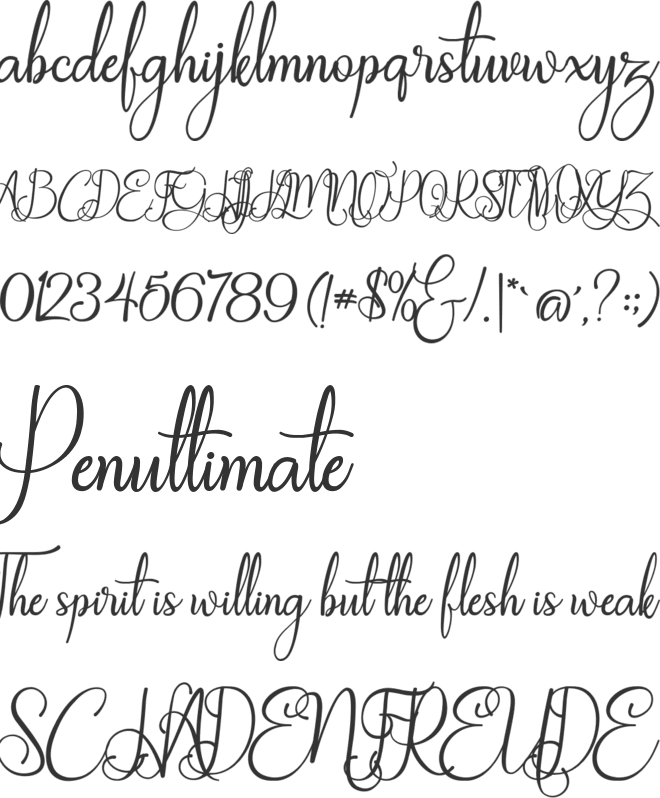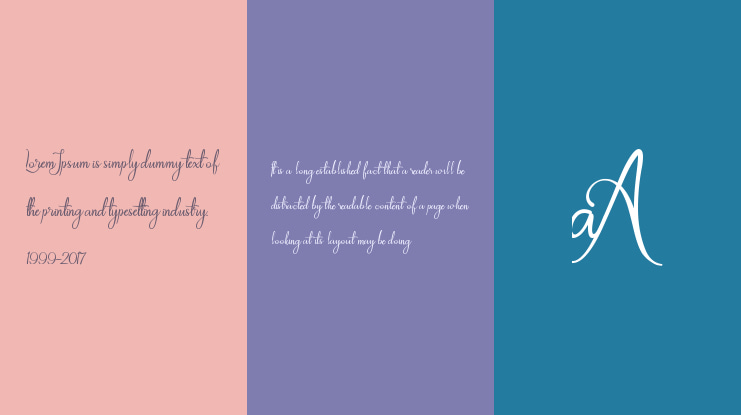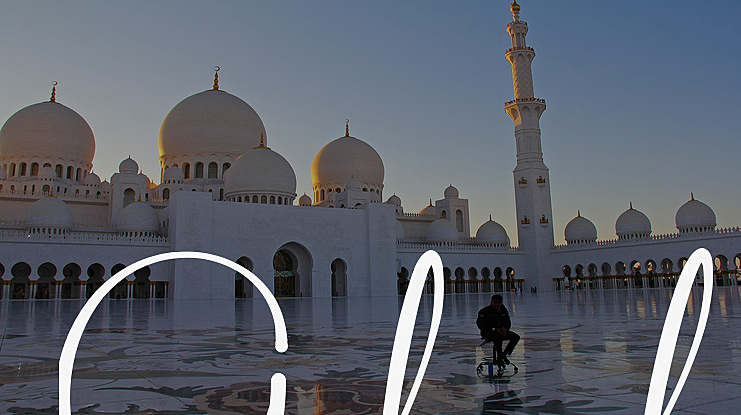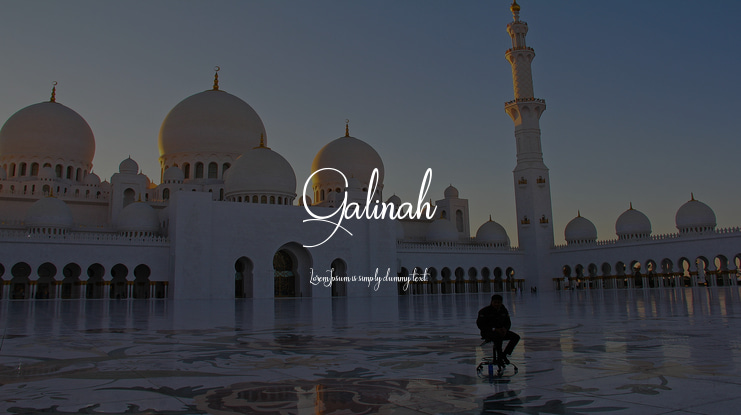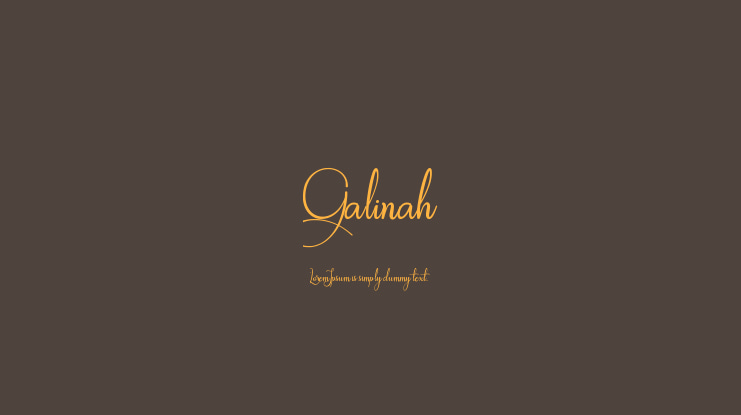
Galinah Font
Introducing a new beautiful calligraphy font, Galinah ! Galinah is perfect for elegant logos, upscale packaging, wedding stationery, websites, and any other projects requiring a handwritten and luxurious touch. A wide range of alternates are included so that you can give your logo or name a custom, hand-calligraphy look.